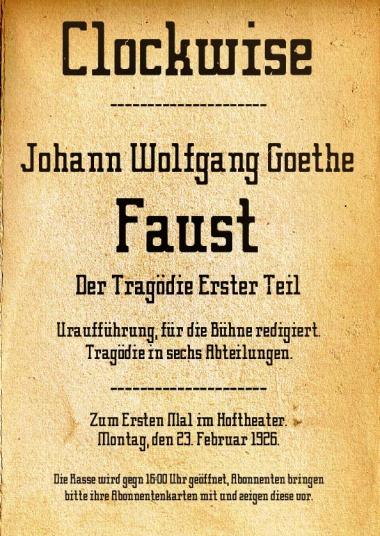
...and your best work as well, methinks. Very well designed. Only the N doesn't fit (an upside U perhaps?), and maybe the j needs to be moved over to the left a couple of grid blocks. Great sample too. Well done.
Excellent work. I love the k.
Great sample too.
nice details!